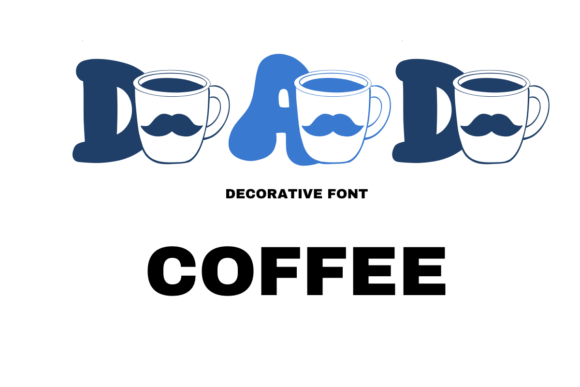
Dad Coffee Font: The Perfect Decorative Font for Your Creative Projects
The world of typography is vast and diverse, with numerous fonts available for various design needs. Among these, the Dad Coffee font stands out as a unique and decorative option. In this article, we’ll explore the Dad Coffee font, its features, and uses, helping you understand how to make the most of this versatile font.
What is Dad Coffee Font?
Dad Coffee font is a decorative typeface designed to add a personal touch to your written content. Its distinctive style makes it perfect for informal writing, such as taking notes, writing diary entries, or creating greeting cards. However, its versatility extends beyond these uses, making it suitable for a wide range of design projects.
Features of Dad Coffee Font
The Dad Coffee font boasts several features that make it an attractive choice for designers and non-designers alike:
- Unique Style: The font’s decorative style sets it apart from more traditional typefaces, adding a touch of personality to your text.
- Readability: Despite its decorative nature, the Dad Coffee font remains readable, making it suitable for short to medium-length text.
- Versatility: You can use the Dad Coffee font across various design projects, from digital content to print materials.
Uses of Dad Coffee Font
The Dad Coffee font’s versatility is one of its most significant advantages. Here are some of the many ways you can use this font:
1. Note-taking and Diary Writing
The Dad Coffee font is perfect for taking notes or writing diary entries. Its decorative style adds a personal touch to your writing, making it more enjoyable and engaging.
2. Greeting Cards
Create beautiful and unique greeting cards for special occasions using the Dad Coffee font. Its distinctive style will make your cards stand out.
3. Banners and Posters
Use the Dad Coffee font to create eye-catching banners and posters for events, promotions, or announcements.
4. Social Media Content
Add a personal touch to your social media posts using the Dad Coffee font. It’s perfect for creating engaging and shareable content.
5. Mugs, Cards, and Shirts
The Dad Coffee font is also suitable for designing print materials like mugs, cards, and shirts. Add a unique touch to your merchandise with this decorative font.
6. Stationery
Elevate your stationery with the Dad Coffee font. Use it for designing letterheads, invoices, or any other written content.
Tips for Using Dad Coffee Font
To get the most out of the Dad Coffee font, consider the following tips:
- Use it sparingly: While the Dad Coffee font is decorative, it’s best used in moderation. Mix it with other fonts to create visual interest.
- Choose the right size: Experiment with different font sizes to find the perfect balance between readability and visual impact.
- Pair it with complementary fonts: Combine the Dad Coffee font with complementary fonts to create a harmonious and engaging design.
The Dad Coffee font is a versatile and decorative typeface suitable for various design projects. Its unique style, readability, and versatility make it an excellent choice for designers and non-designers alike. By understanding its features and uses, you can unlock the full potential of the Dad Coffee font and add a personal touch to your creative projects.